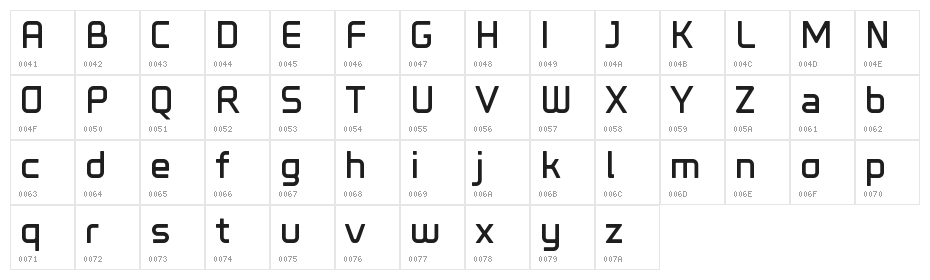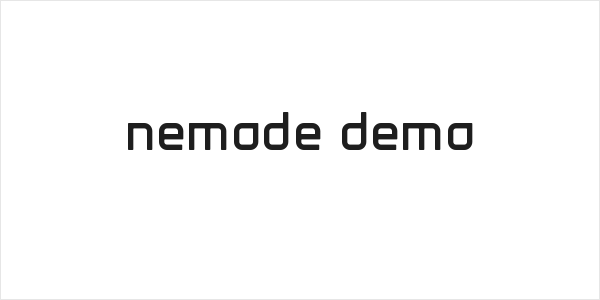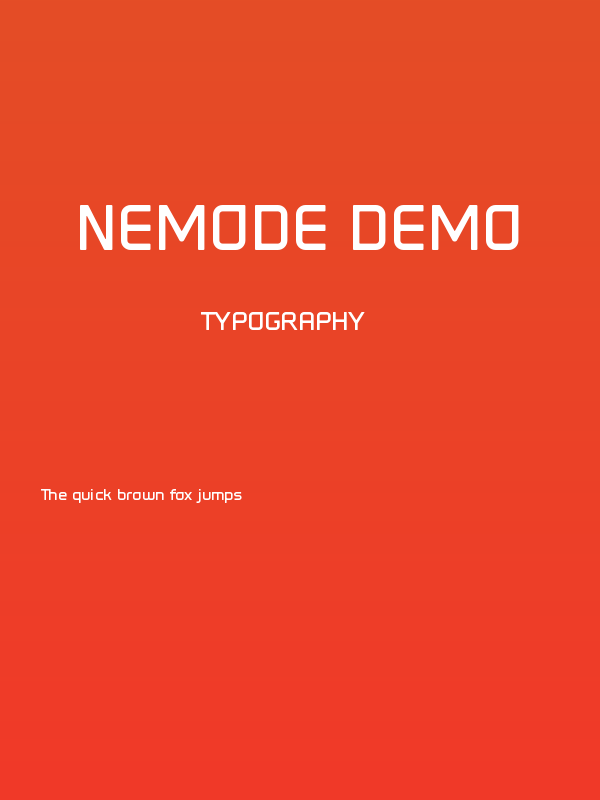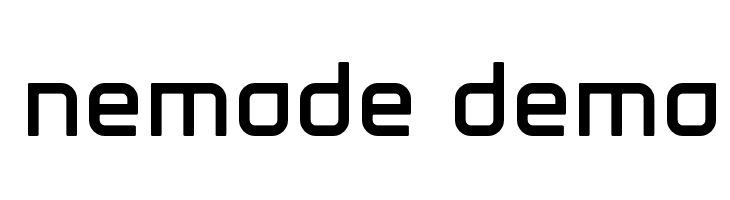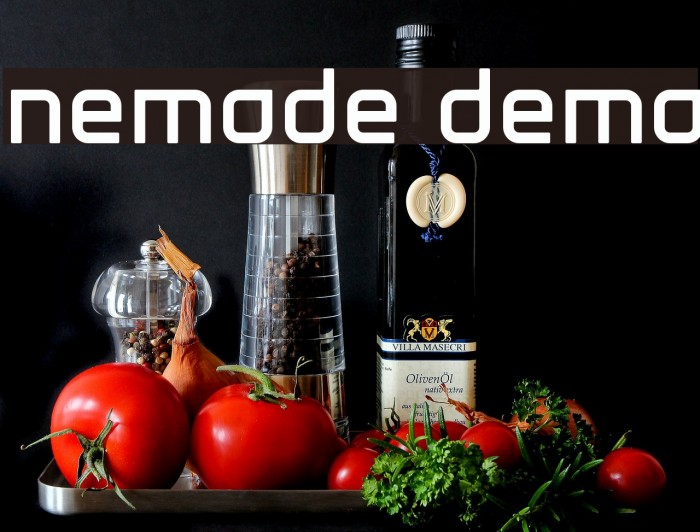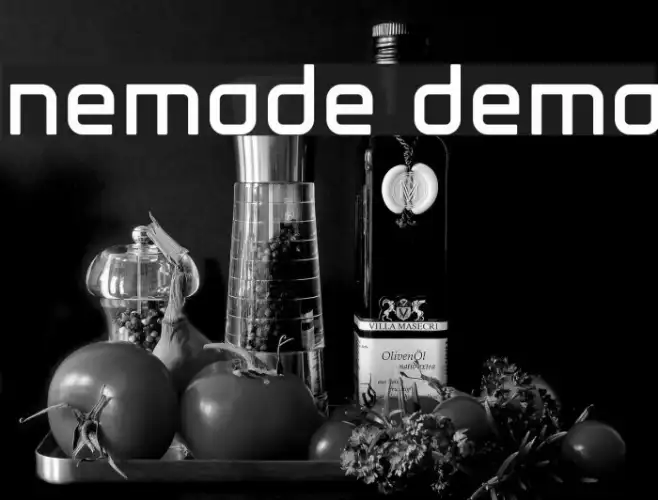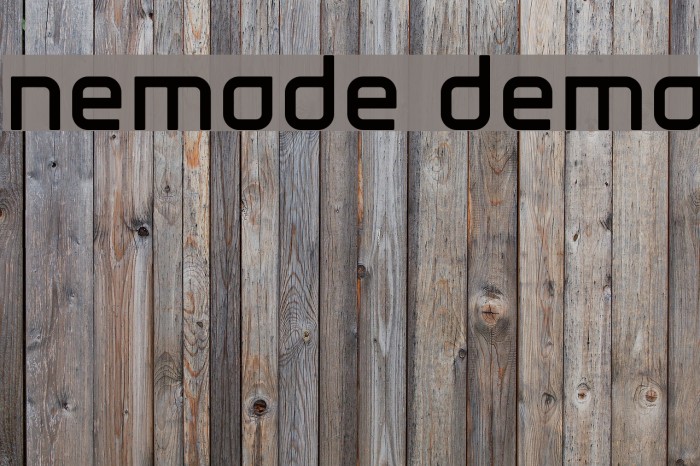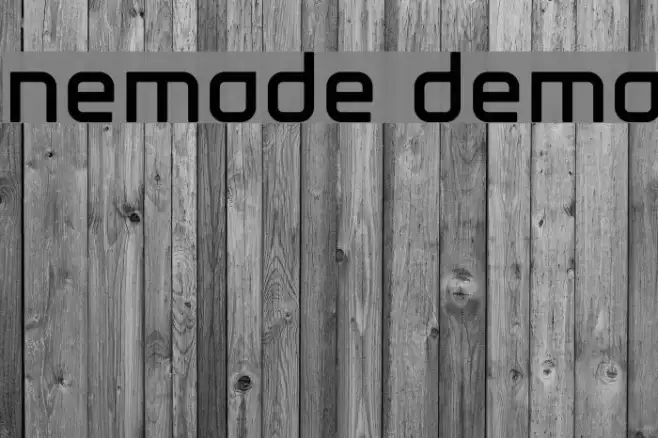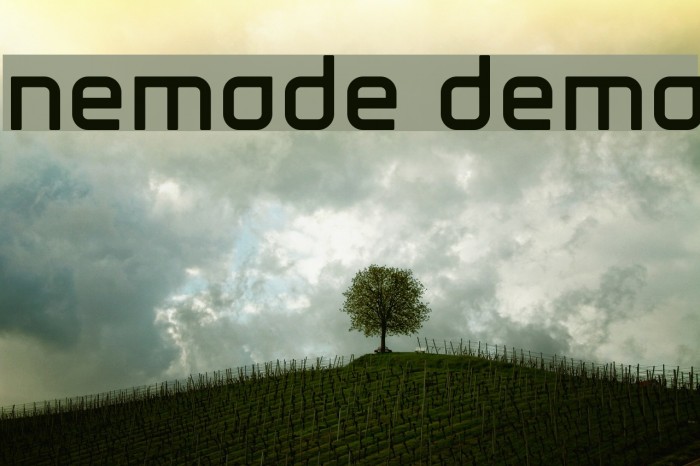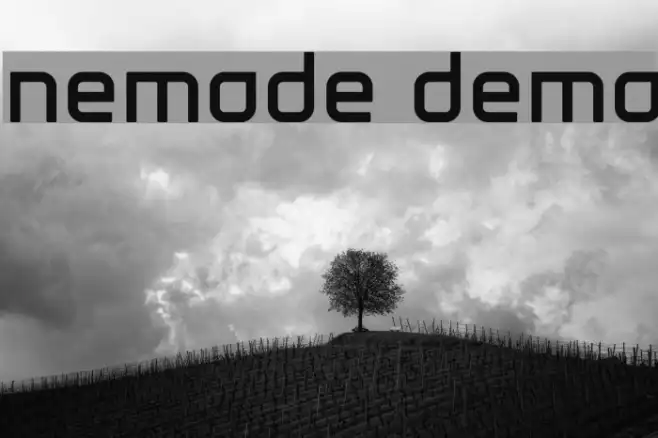
nemode demo Font
nemode demo Description
This font features a modern and sleek design with a geometric structure. The characters are clean and uniform, with rounded edges that soften the overall appearance. The uppercase and lowercase letters maintain a consistent style, offering a harmonious look. The numerals and special characters are designed to match the alphabetic characters, ensuring a cohesive appearance across all text. The font's simplicity and clarity make it highly legible, suitable for various digital and print applications.